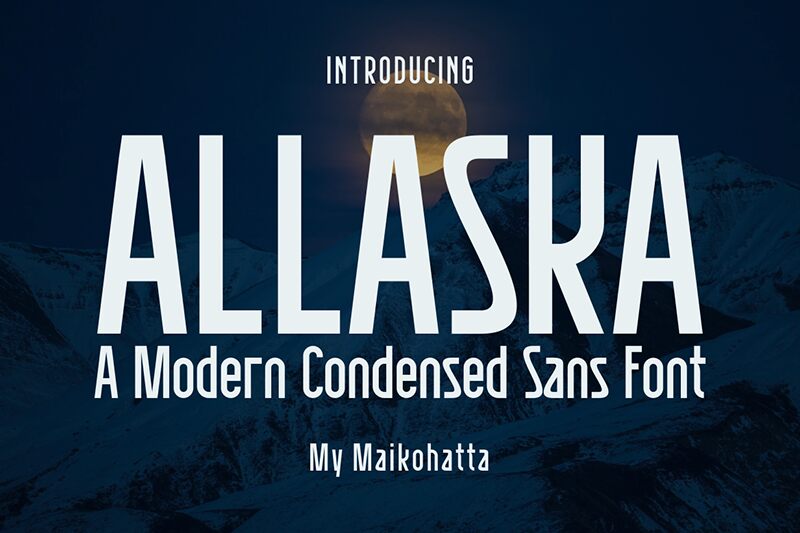
ALLASKA
Allaska font is a modern geometric sans serif by Gilang Ternadho featuring a clean condensed design. With its contemporary appeal, the font has a strong presence and is easily readable in any context, whether short or long caption paragraphs, big poster titles, or even on business card prints. It is also available as a free sans serif.
The possible uses of the typeface include advertisements (both copy and icon), corporate identity briefs and documents, app UI/UX designs, branding of products like gaming gear and smart gadgets, T-shirt designs for ready-made online sales on websites like TeeSpring... The possibilities are infinite!